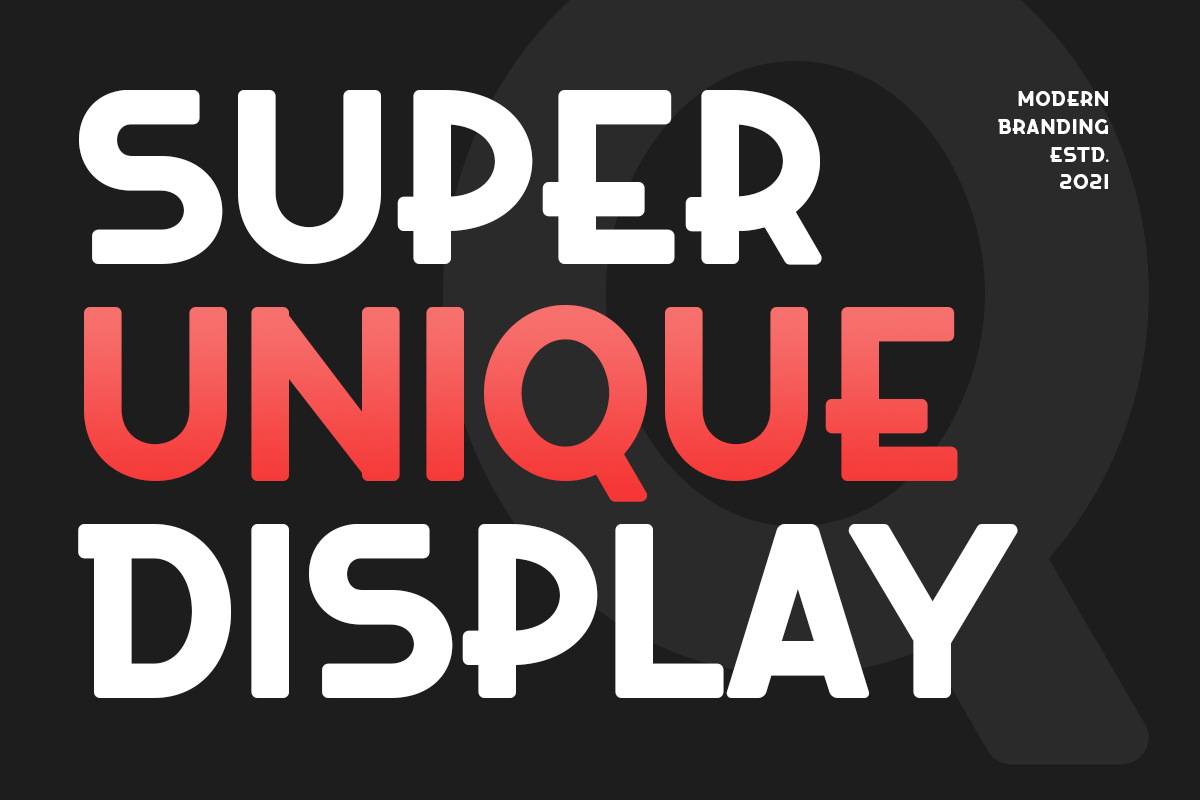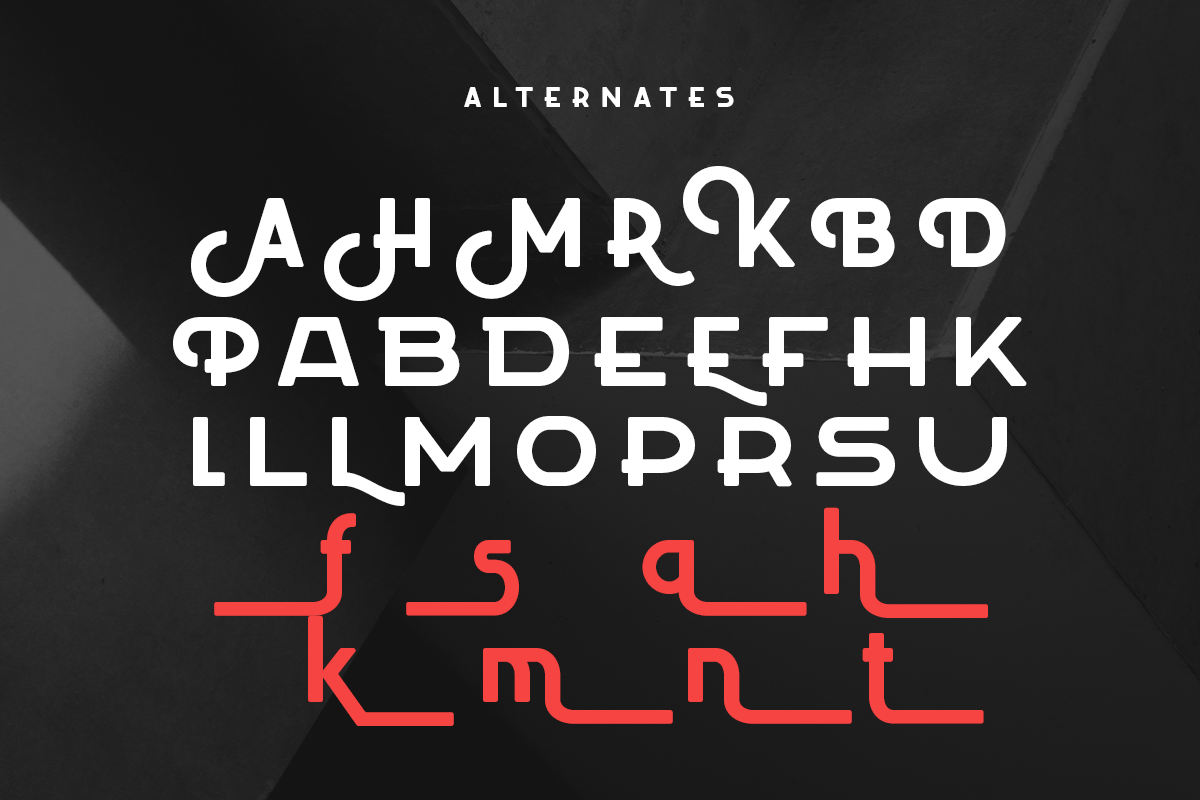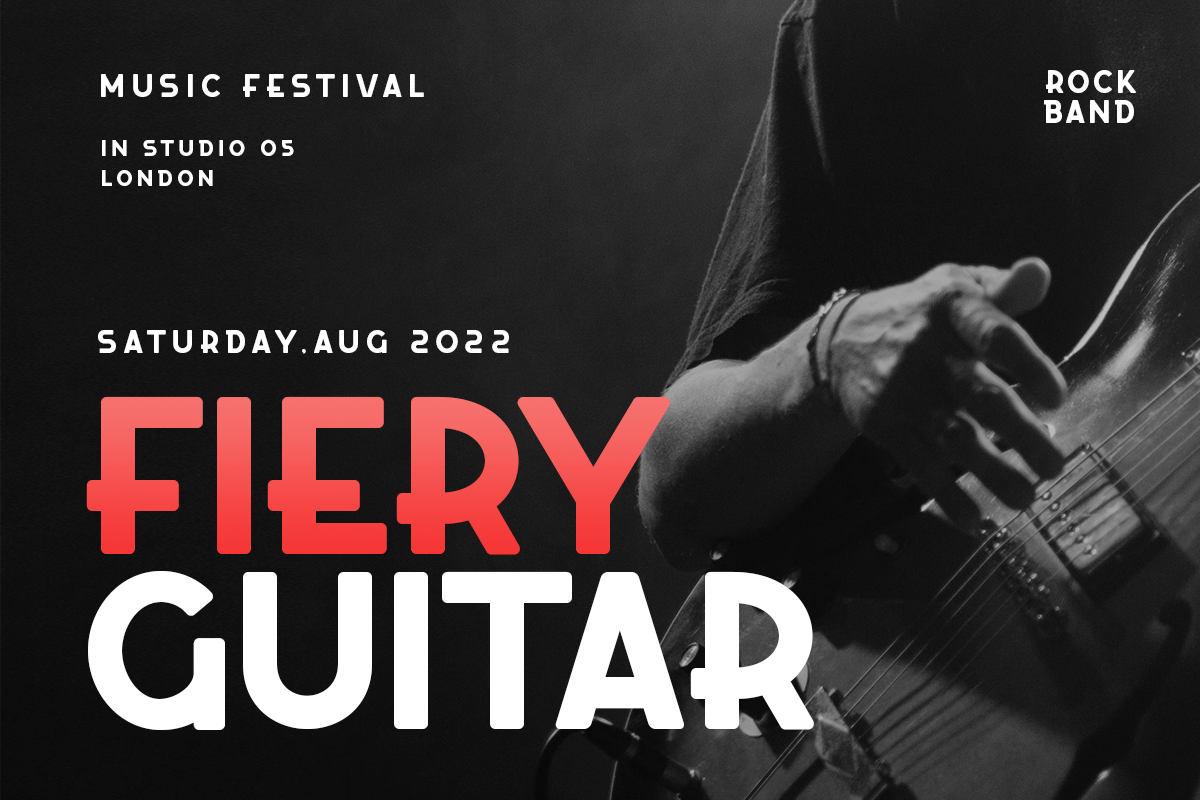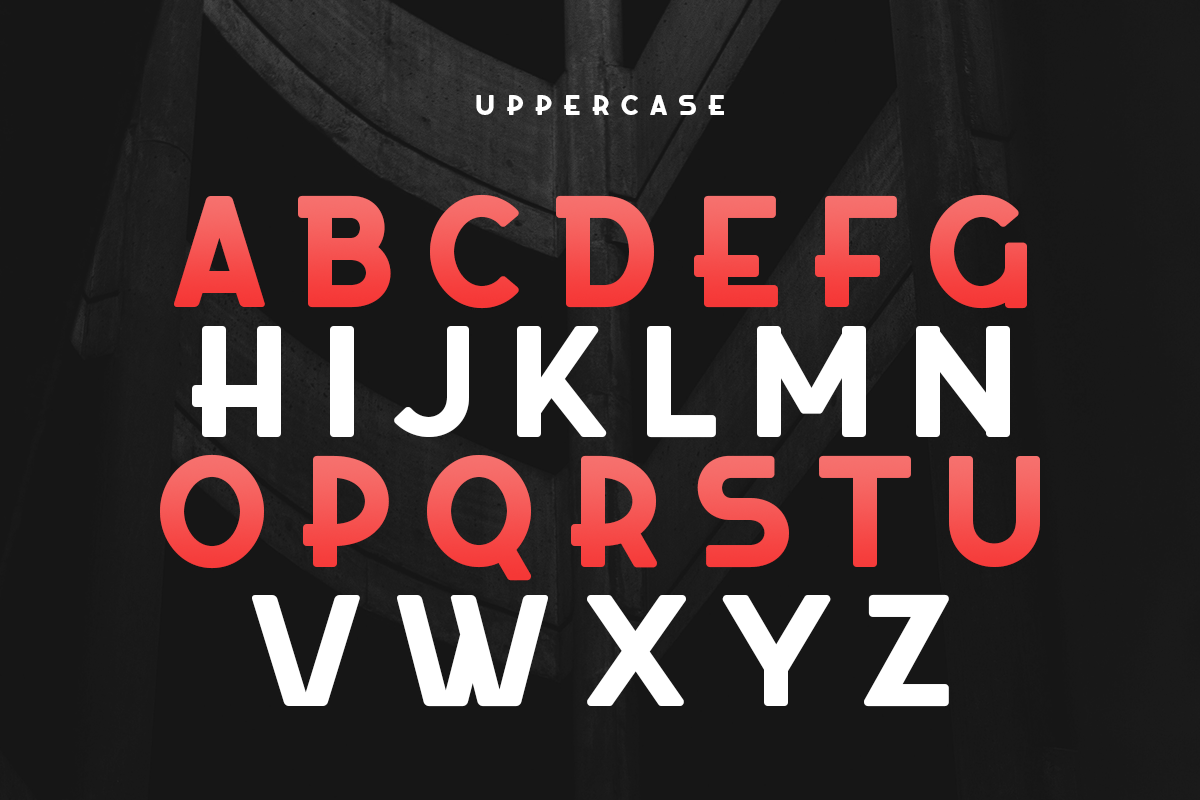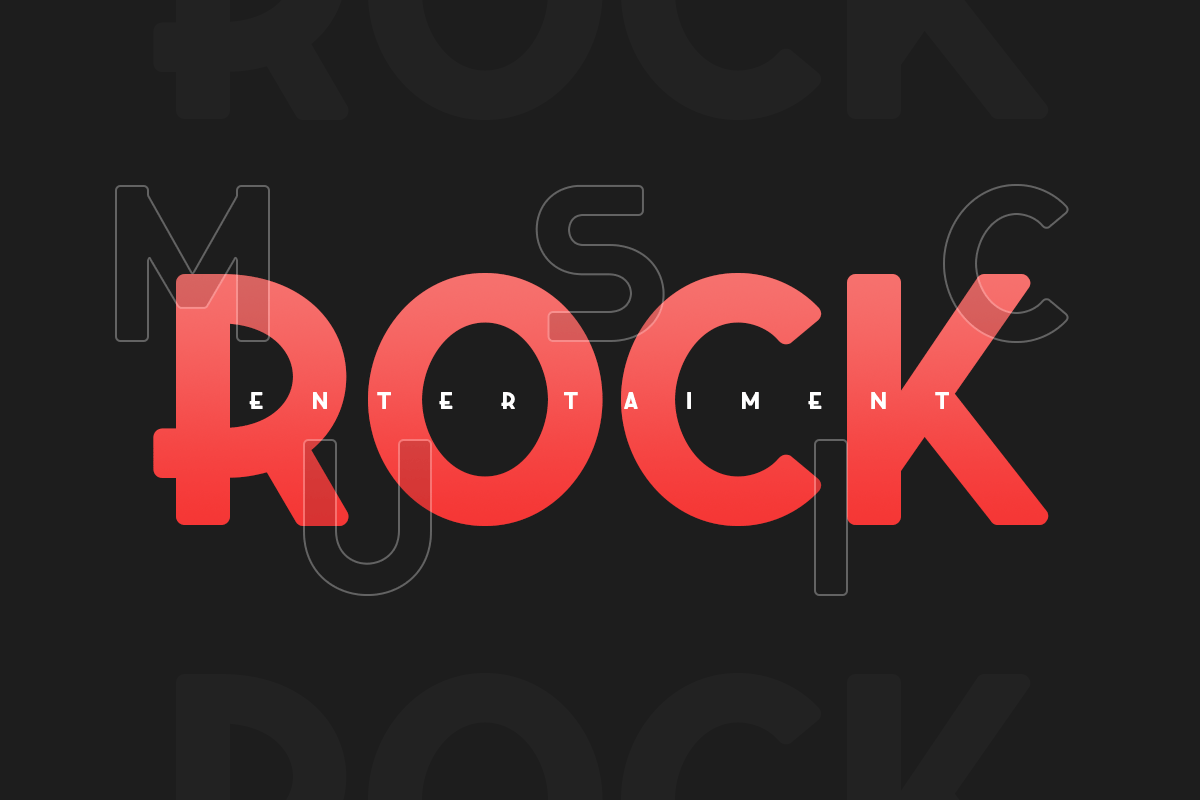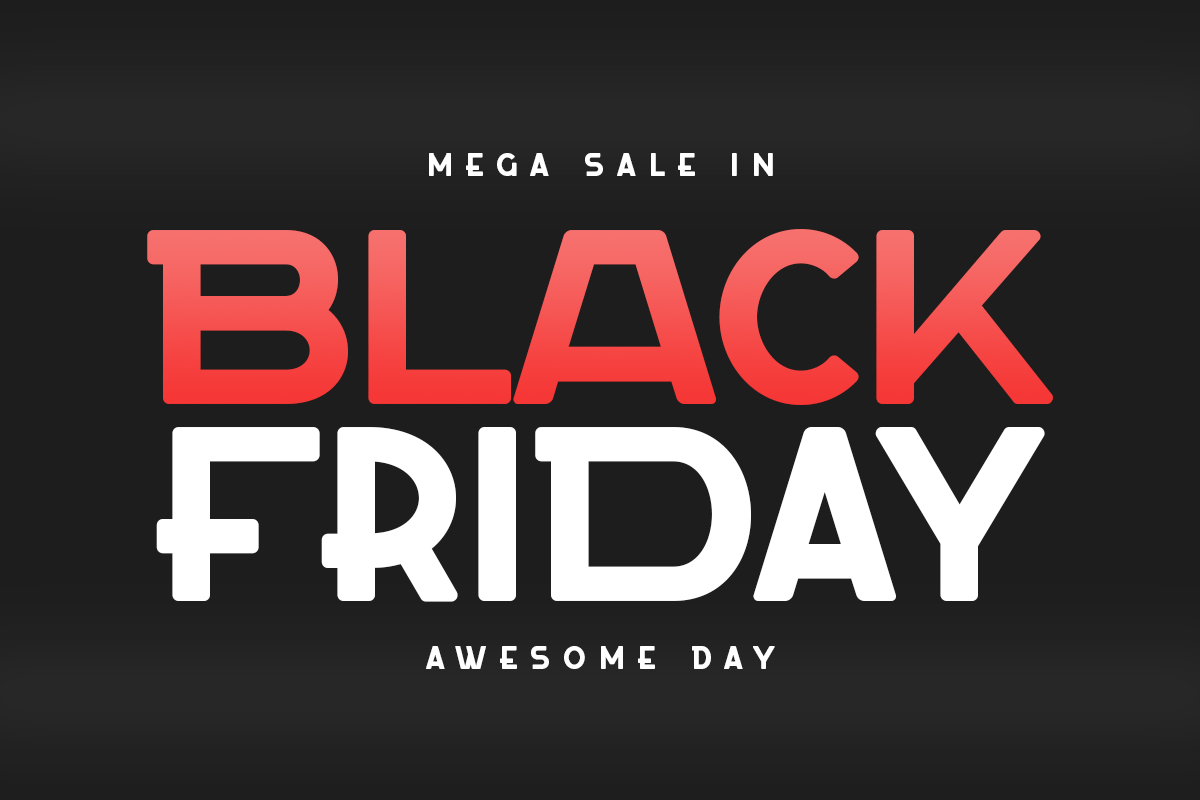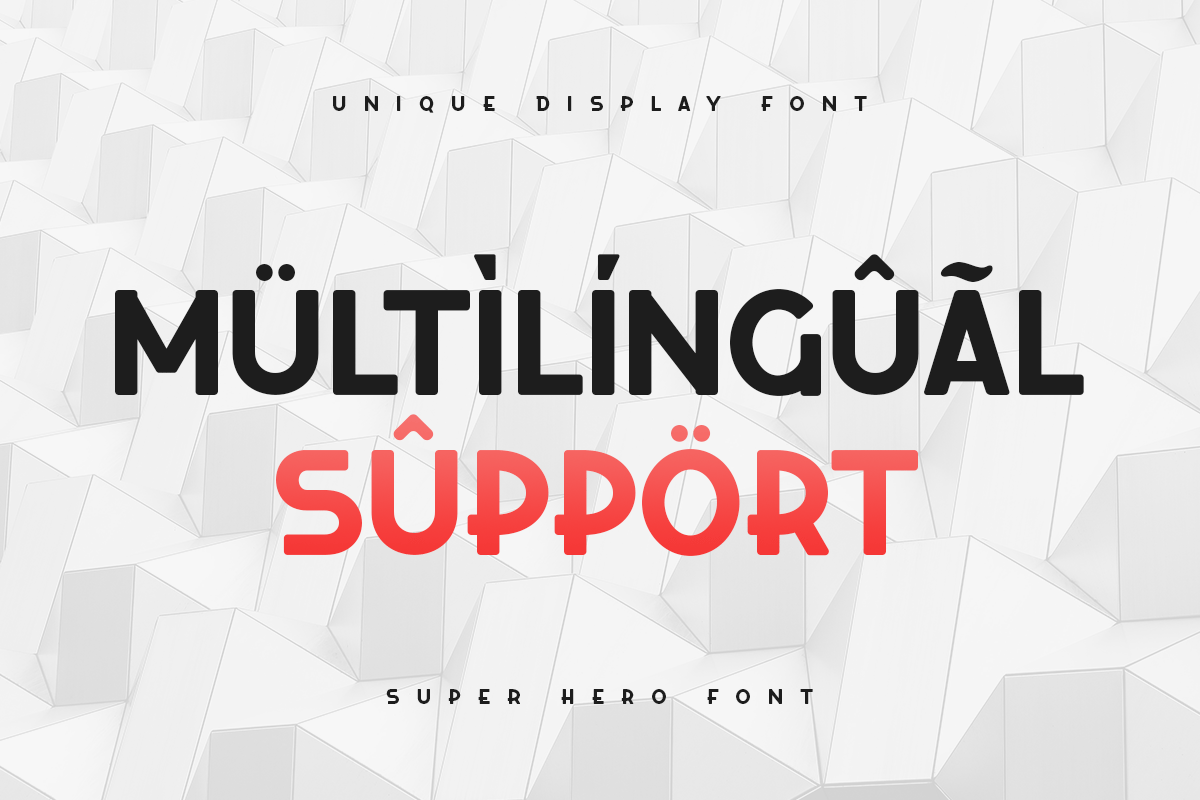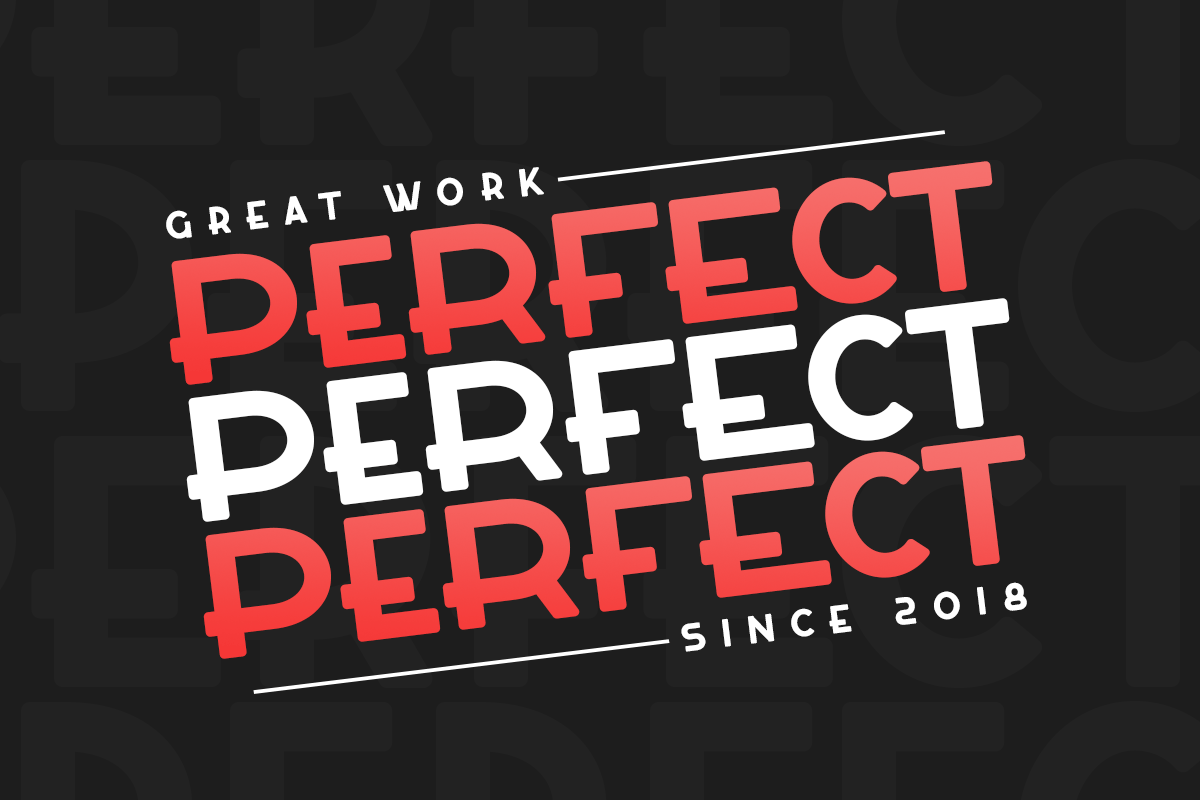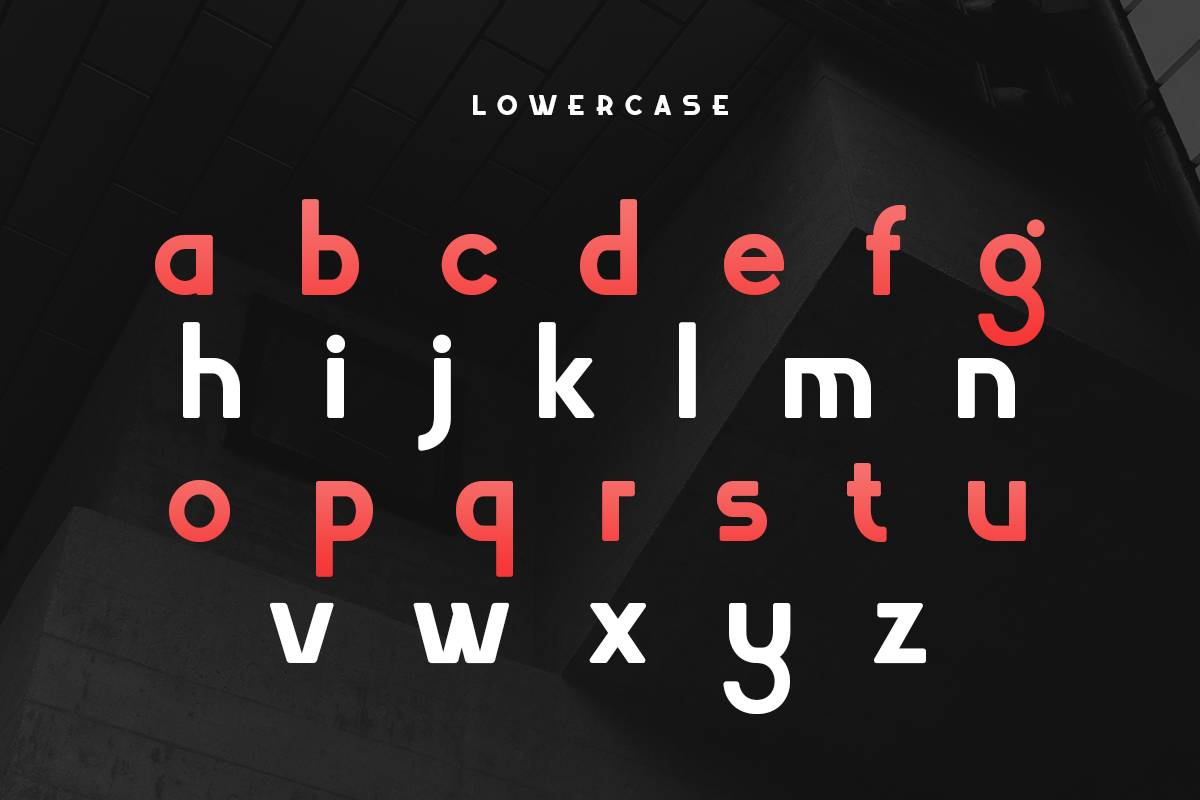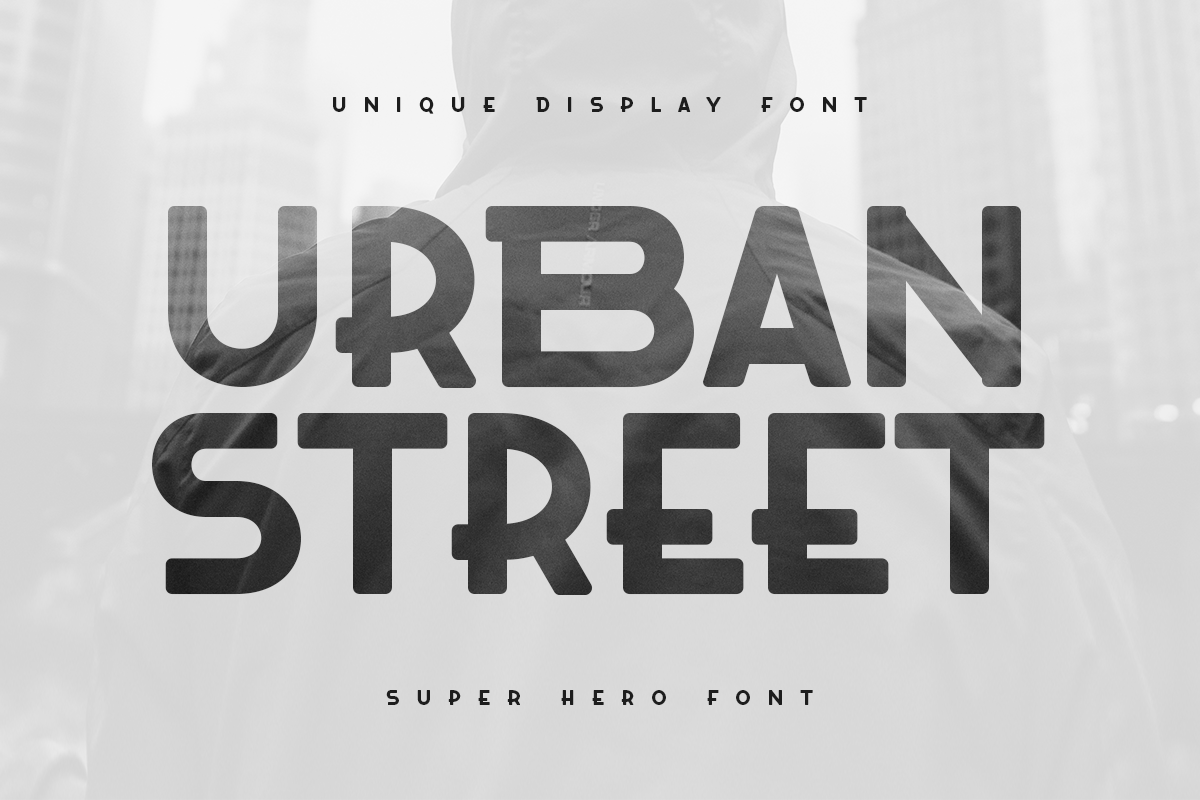
Super Hero – Unique Display Font
Super Hero is a Unique Display Font with Floating shape make your design look unique and modern
A new Display Font that we created special for Headline, Title and more stand out typography needs, with extra ligature that will add your variations. It’s so perfect to add your style and headline overview. And specially for this font, we crafted for unique style and modern feels so enjoy to create any project that will show your main idea out.
Super Hero Unique Display Font ready with:
- Any options to get creative variations (combination of Ligature Characters)
- Ready with All characters